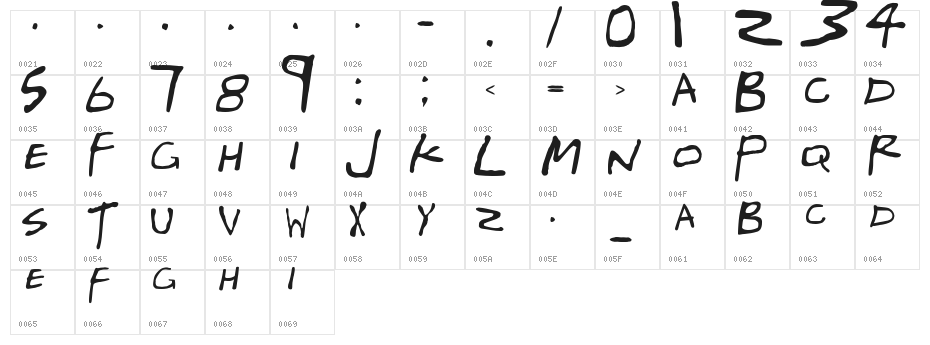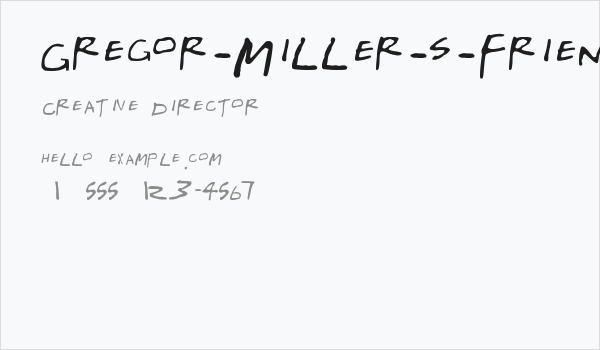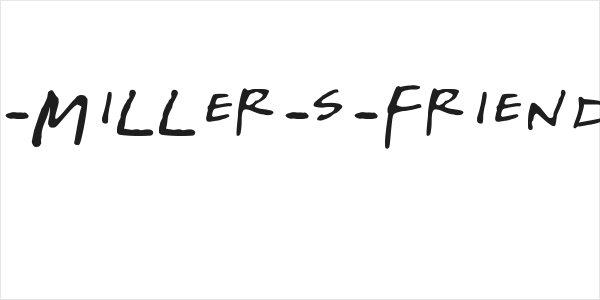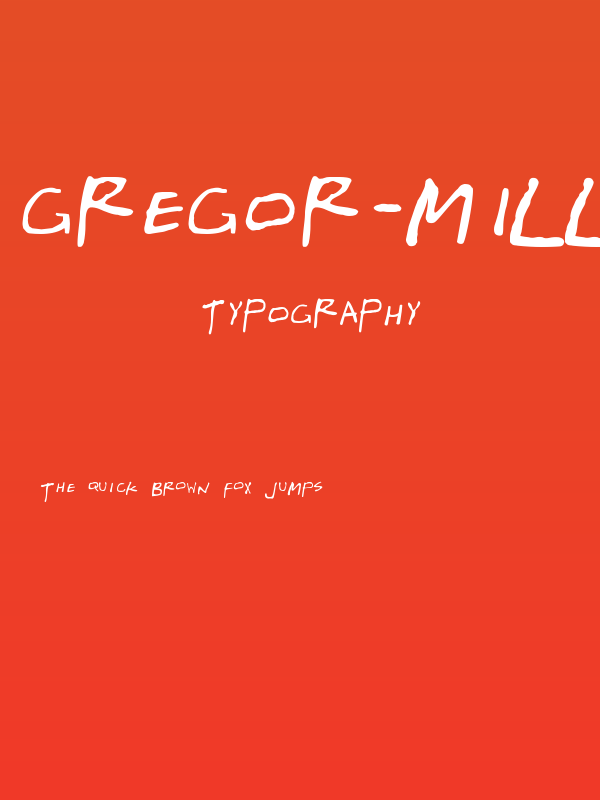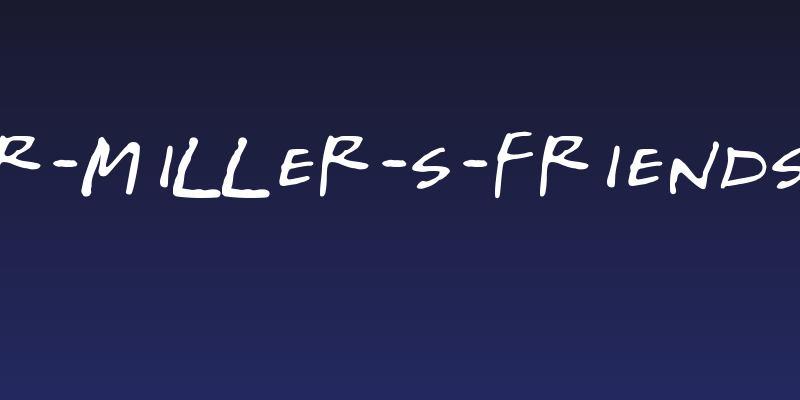
Gregor-Miller-s-Friends-Font Font
Gregor-Miller-s-Friends-Font Description
This font exhibits a playful and informal handwritten style, characterized by its uneven strokes and casual appearance. The letters are slightly slanted, giving a dynamic and energetic feel. Uppercase and lowercase letters maintain a consistent style, with a slight variation in height and width that adds to the hand-drawn aesthetic. The numbers follow the same informal style, with unique curves and angles that enhance the font's quirky personality. Special characters are included, maintaining the same playful and casual design. The overall appearance is approachable and friendly, making it suitable for projects that require a personal touch.